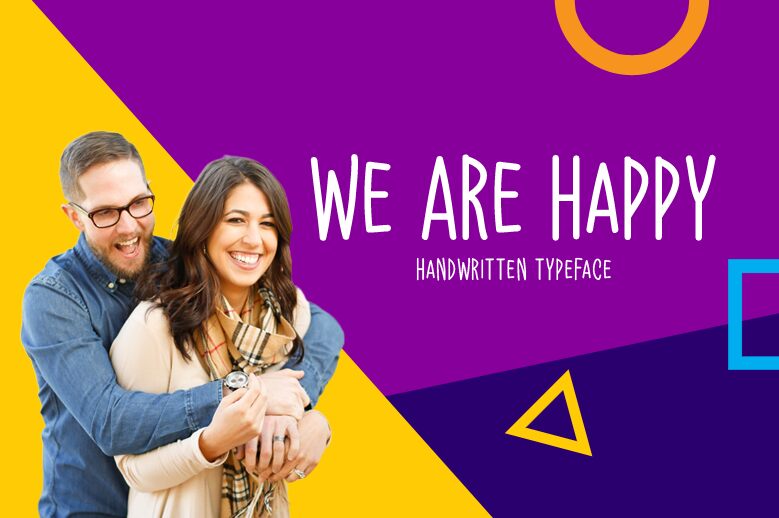
We Are Happy, a delightful and whimsical handwritten font designed by Md Shohail Bhuian, brings a touch of joy to any project. With its light weight and extra-condensed width, this font exudes playfulness and elegance.
Perfect for children's books, greeting cards, and party invitations, We Are Happy adds a charming and personal touch to any design. Its unique style captures the essence of creativity and is suitable for crafting logos, quotes, or social media graphics that aim to spread positivity.
Let We Are Happy inspire your next project with its delightful handwritten charm.